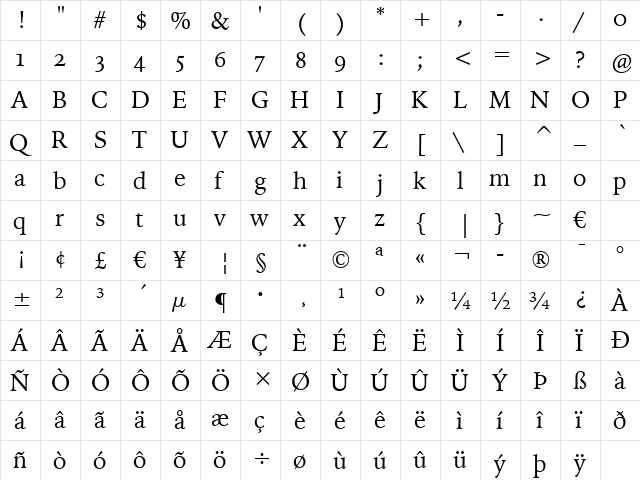
IowanOldSt OSF BT Roman
Design Context for IowanOldSt OSF BT Typeface
IowanOldSt OSF BT offers clean, dependable letterforms without strong stylistic allegiance, making it a practical choice for designers who need flexibility.